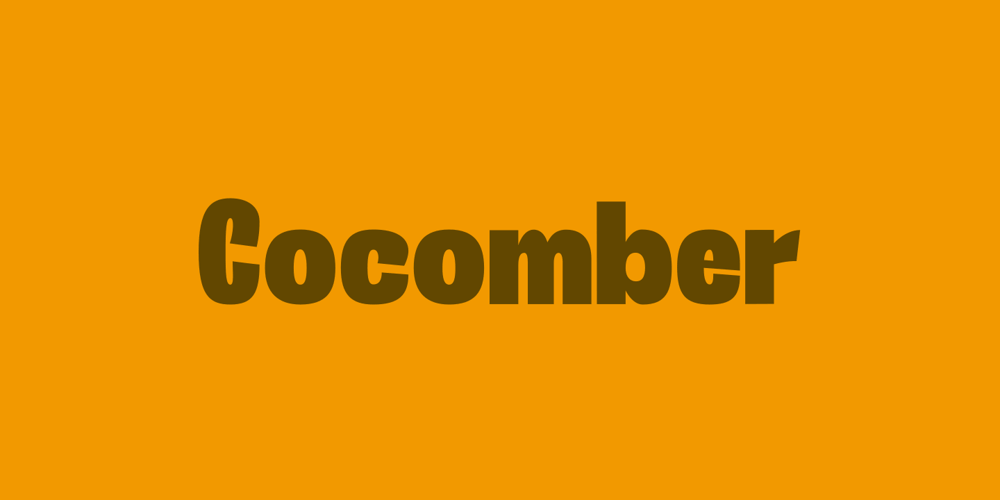
Cocomber
Cocomber font
Cocomber Font Family was designed by Arief Rochman and published by 4RM Font. Cocomber contains 1 styles and family package options. Inspired by a unique food, Cocomber font is made with a unique and distinctive shape. Combining authenticity and unique form, this font looks casual and gives off a fun feel. This font will be suitable for use in graphic designs with a casual theme.